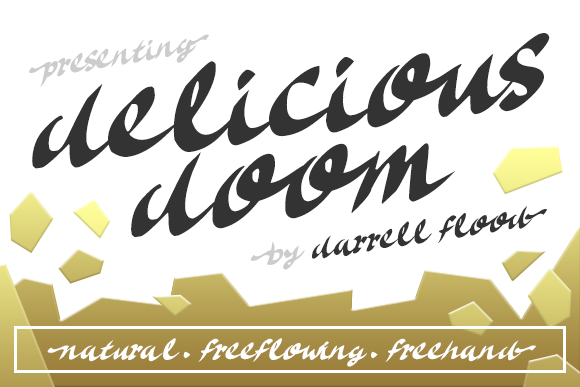
Delicious Doom
Delicious Doom Font
Delicious Doom is a natural, hand-written font in a loose, flowing script style. This fun font comes in all lower-case, with simple forms accentuating playfulness and approachability.